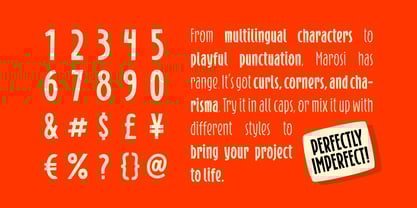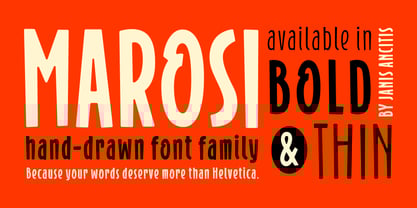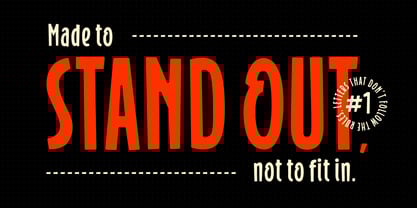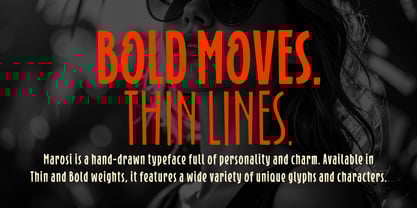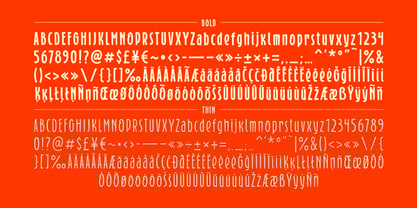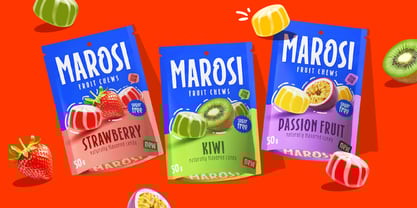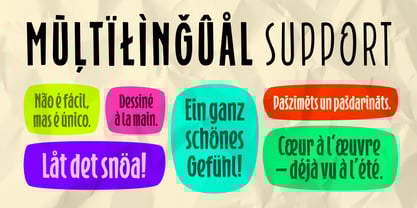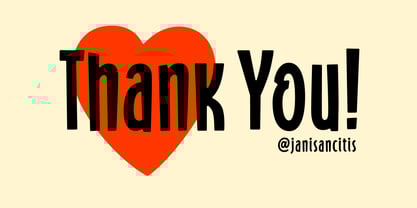
Marosi
by AncitisGlyphs
This playful, hand-drawn typeface began as a series of smoothie flavor names—each letter was drawn with care, adding playful curves, and plenty of character. Now when it's fully developed into a complete font, it blends expressive personality with modern versatility, making it a great choice for packaging, branding, logos, or eye-catching headlines.
This typeface includes a full character set with multilingual support, making it functional across a wide range of languages and markets. It's especially well-suited for food & beverage projects, kids' products, lifestyle brands, and anything that benefits from a fun yet polished typographic voice.
Pair it with a clean sans-serif or a minimal geometric font to balance its charm with contrast and clarity.
Whether you're telling a playful brand story or simply adding personality to your layout, this font was designed to stand out—without overwhelming the message.